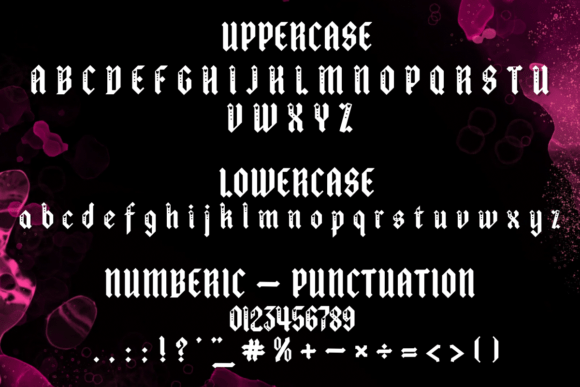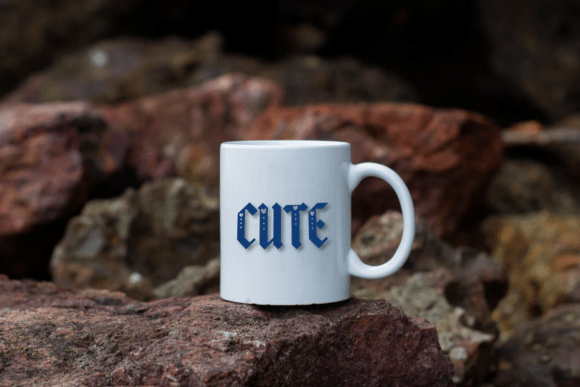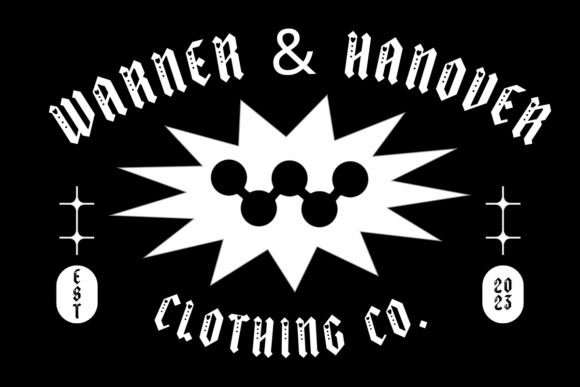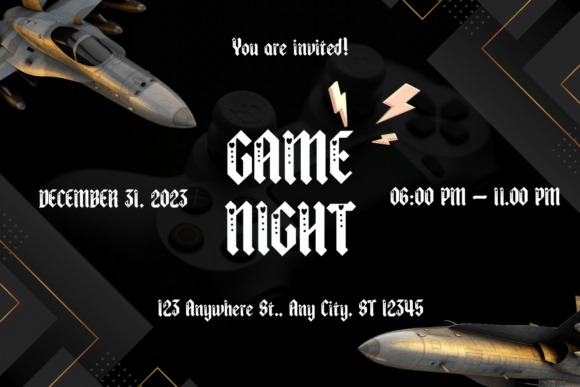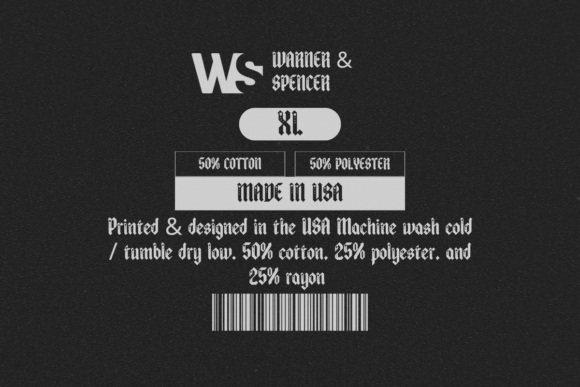
Heart Valentine Old English Font – Free Download
Introduction to Heart Valentine Old English Font
Heart Valentine Old English is a handwritten font.
You can use it for taking notes, writing a diary or making greeting cards However you can still use it for other designs such as banners content mugs cards shirts stationery social media posts and more.
Key Features of Heart Valentine Old English Font
Why Choose Heart Valentine Old English Font?